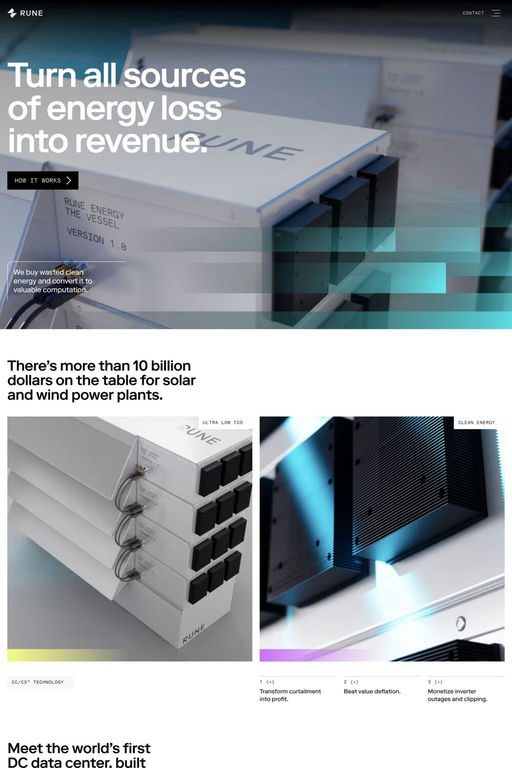
Grosa is a sans-serif typeface from Feliciano Type.
Grosa is a modernist sans serif designed originally as the main typeface for our new website. Simple and carefully crafted open forms turn Grosa into a powerful workhorse sans serif, a perfect choice for branding, signage, web and editorial design. Instead of following pre-existent designs, Grosa is the silver lining found in the interception of some of the most iconic sans serifs in history. Available in six weights, Light, Regular, Medium, Bold, Extrabold and Black with matching italics and a wide range of characters.